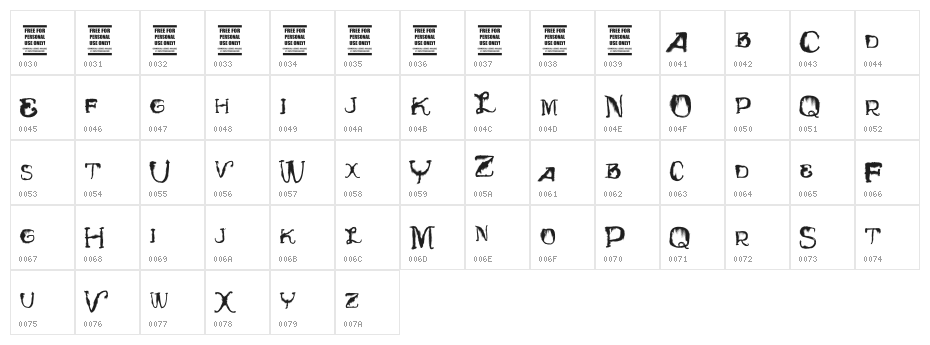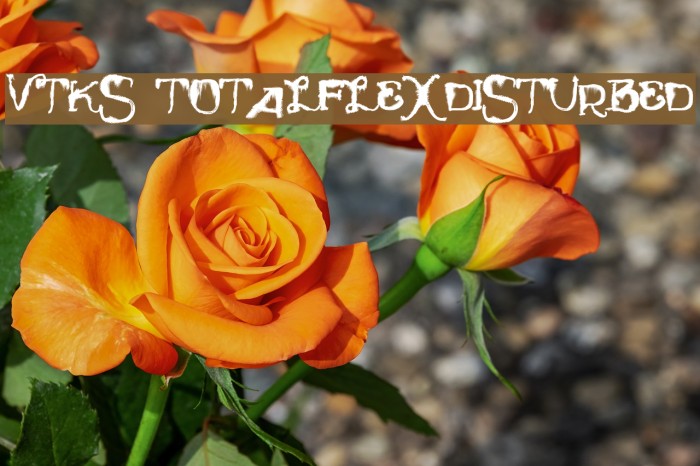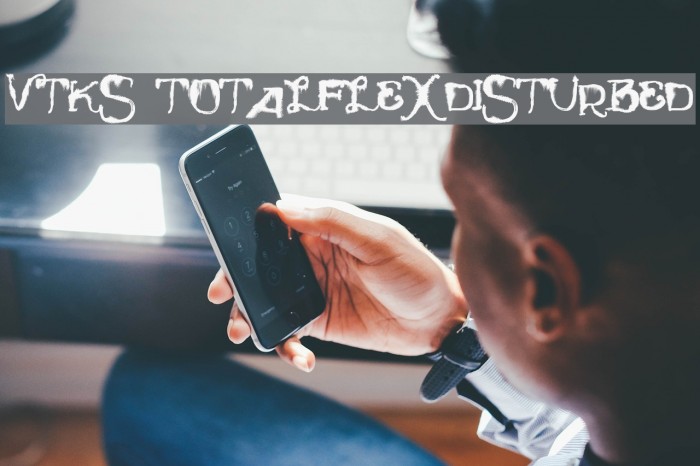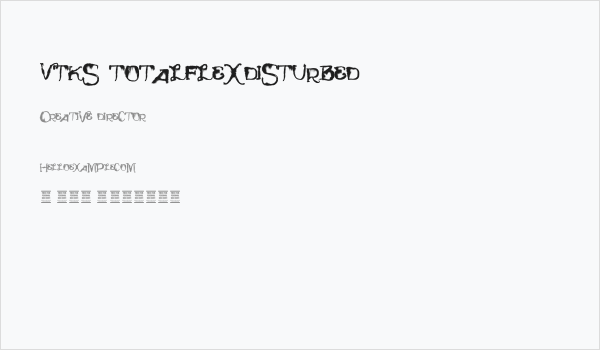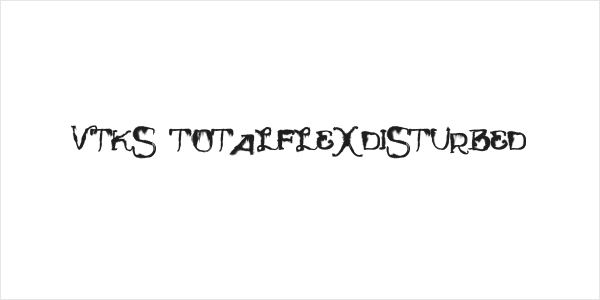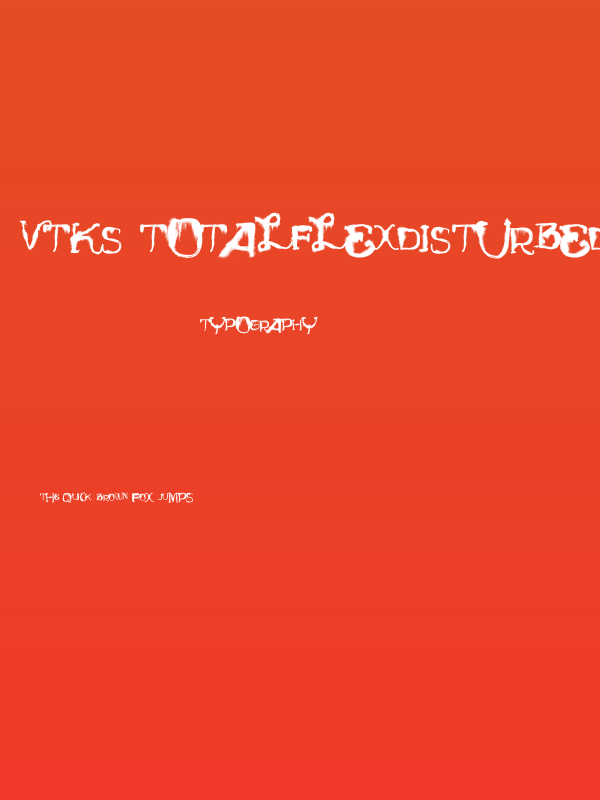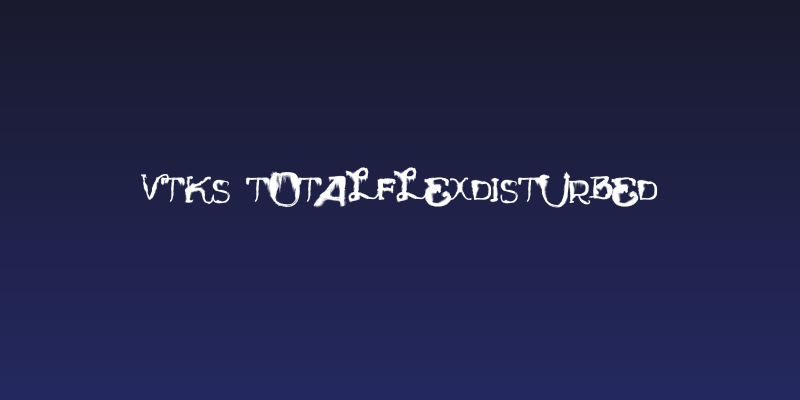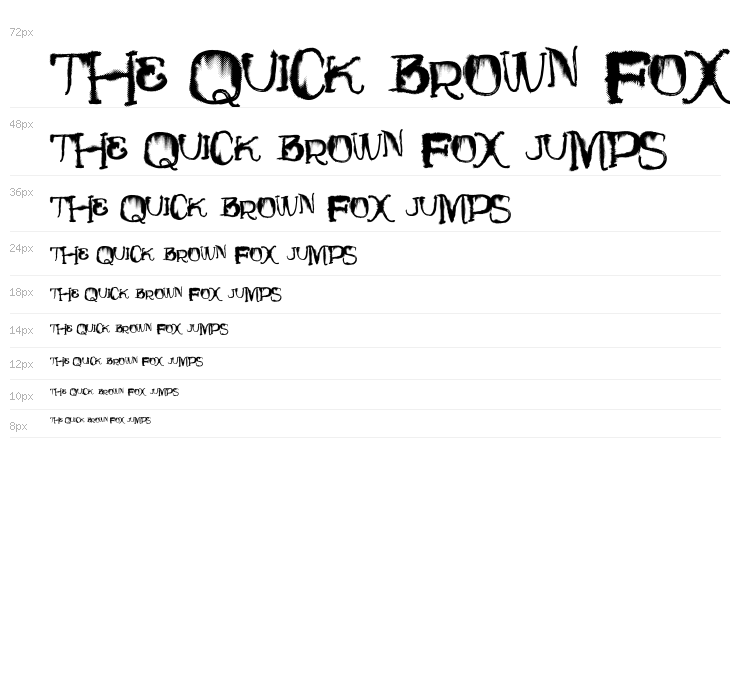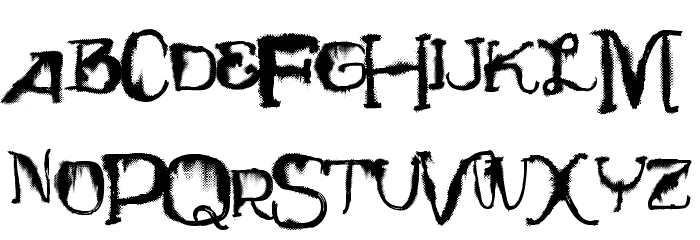
Vtks TotalFlexDisturbed Font
Vtks TotalFlexDisturbed Description
This font features a highly distressed and grungy style, with each character exhibiting a unique, rough texture that gives an impression of decay or erosion. The letters are bold and have an irregular, hand-drawn appearance, with varying stroke widths that create a dynamic and chaotic visual effect. The uppercase and lowercase letters maintain a consistent theme, with exaggerated curves and sharp edges that enhance the font's edgy and rebellious aesthetic. This font is ideal for projects that require a bold statement or a sense of raw, unrefined energy.
| Overall Style | Grunge, Distressed |
| Proposed Projects | Album covers, poster designs, streetwear branding, or any project needing a rebellious or edgy look. |